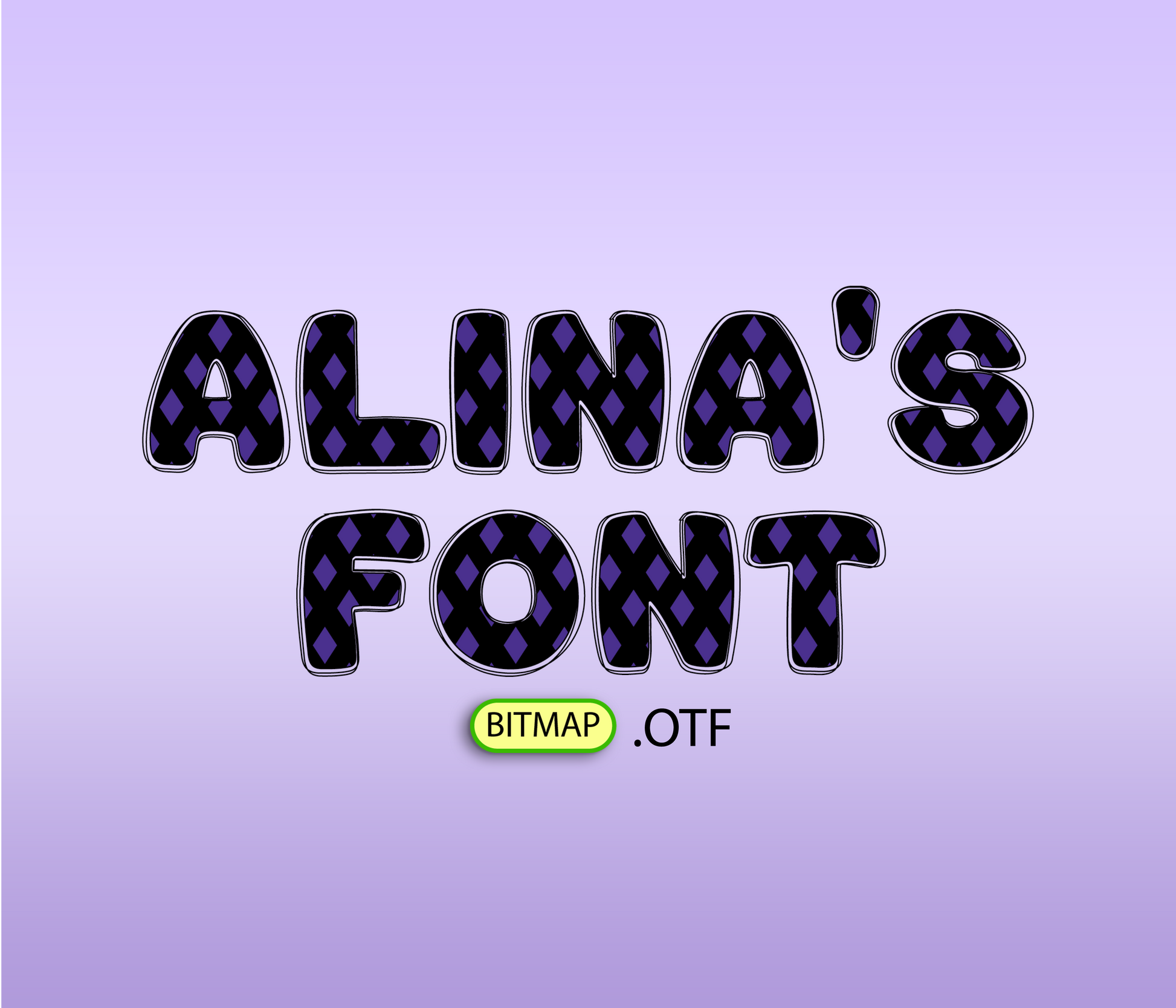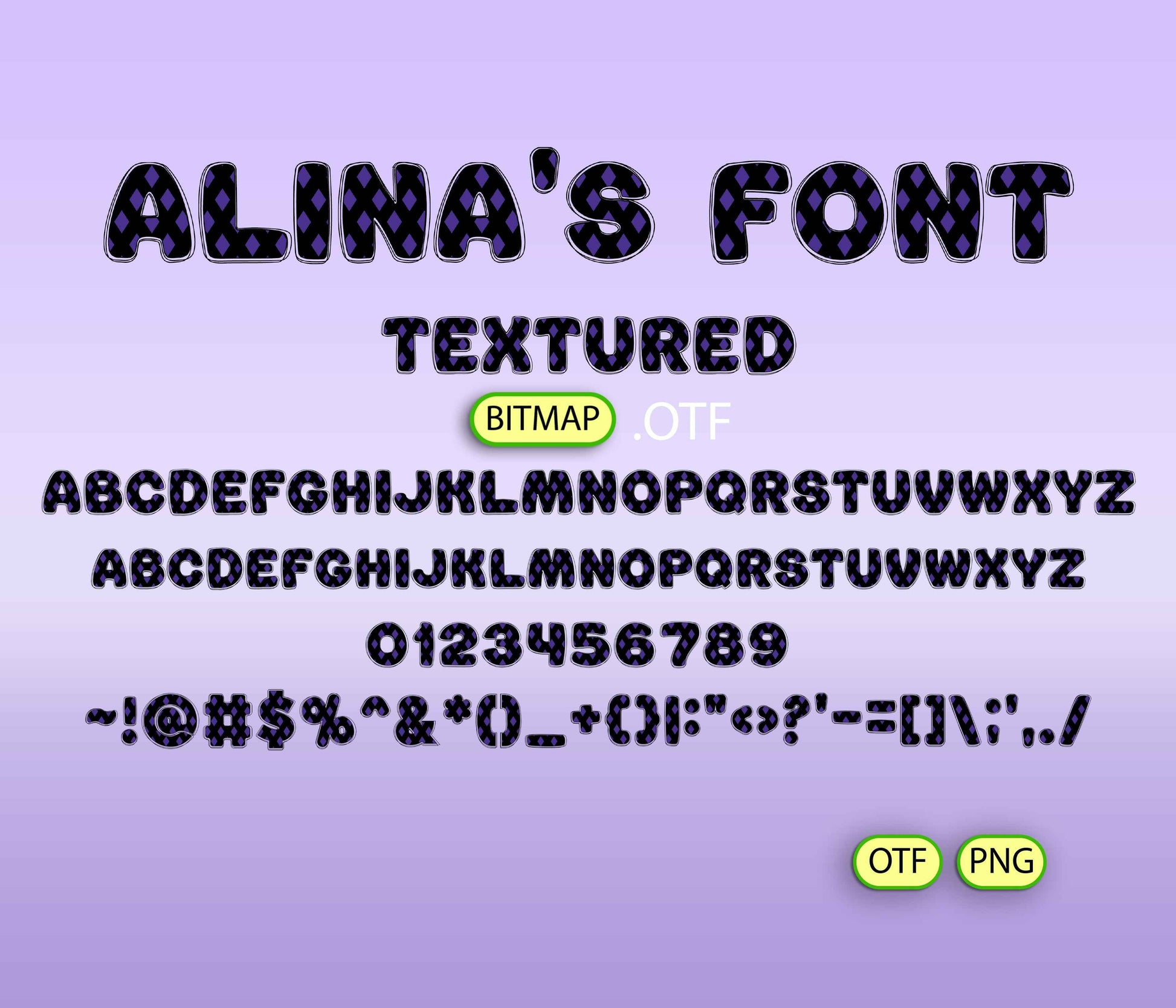
Enigmatic Youth Gothic Pattern Font
Enigmatic Youth Textured Font: A Gothic Typographic Tale
Step into the darkly delightful world of a mysterious young protagonist with the Enigmatic Youth Textured Font. This font is a tribute to the peculiar charm of a brooding teen character, adorned with creative patterns inspired by her gothic and quirky universe. Each letter is a piece of art, embellished with elements reflective of a unique style, from a love of the macabre to dry wit.
The creatively patterned letters add a layer of gothic elegance to your projects, making this font a perfect companion for artisans seeking to infuse a touch of the peculiar and the eerie into their work. Whether you're designing hauntingly beautiful birthday invitations, crafting eerie cake toppers, or embroidering darkly whimsical t-shirts, this font brings the essence of a complex teenage character into every stroke.
The detailed patterns decorating each character are more than just embellishments; they are a narrative, telling tales of a mysterious world in every curve and line. The "Enigmatic Youth Textured Font" is not just a collection of letters; it's a journey into the heart of gothic elegance and quirky charm that this character embodies.